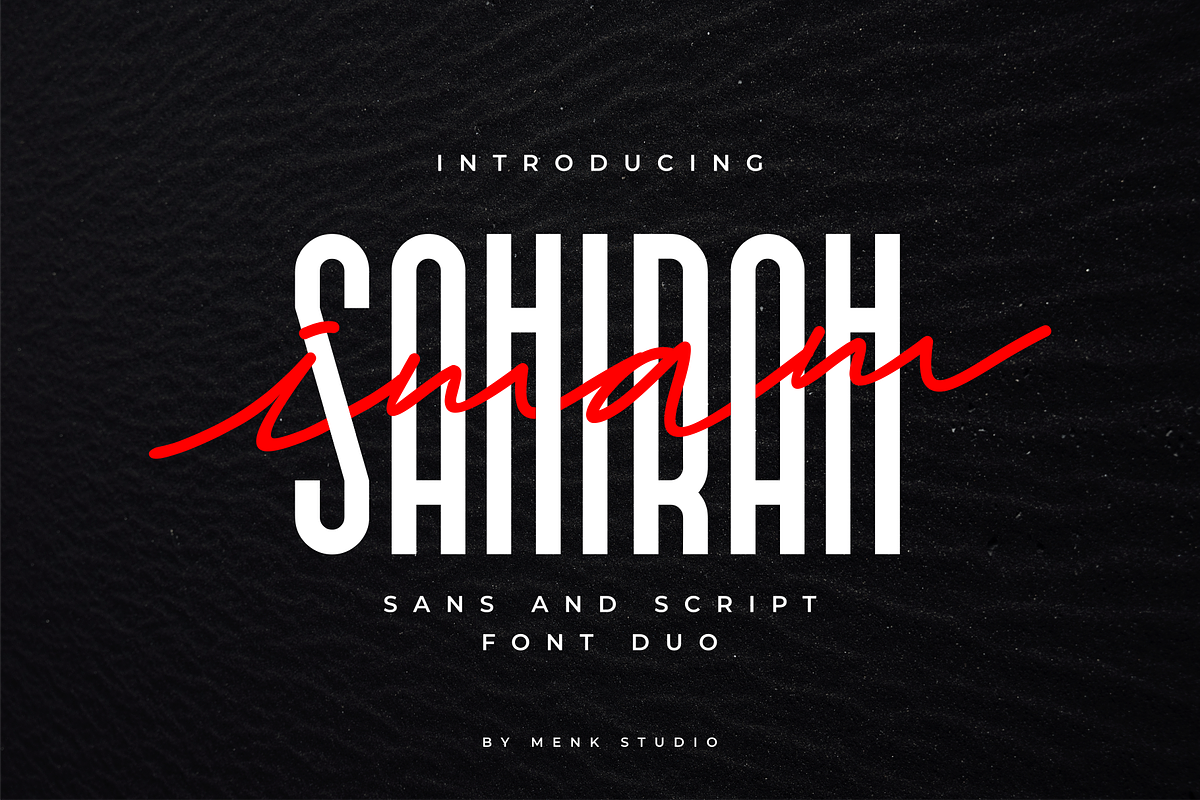
You must purchase this font for commercial use. However, you can download Imam Sahirah Font Free Download for testing purposes. Imam Sahirah is a beautiful script font with an elegant, flowing design. Its smooth curves and intricate details make it perfect for high-end branding, wedding invitations, luxury product packaging, and any project that requires a sophisticated handwritten touch.
With its stylish letterforms and artistic flair, Imam Sahirah adds personality and class to your designs. Whether you’re creating a romantic invitation, a chic logo, or an upscale brand identity, this font brings a touch of elegance and refinement to your typography.